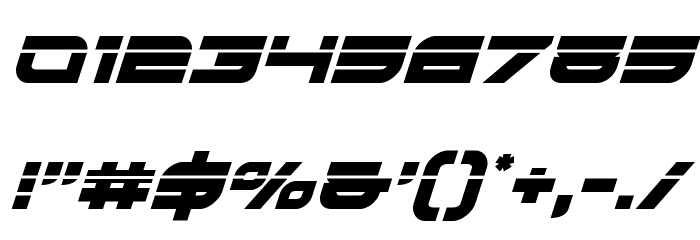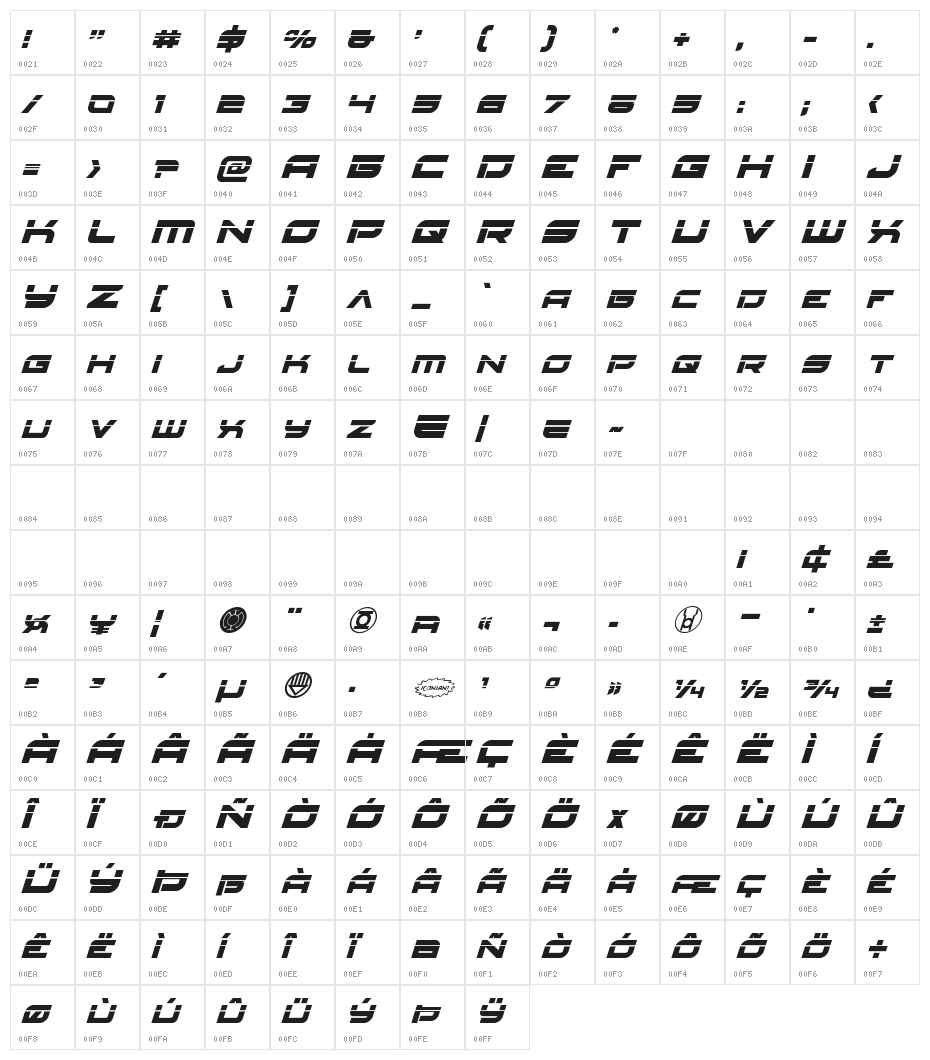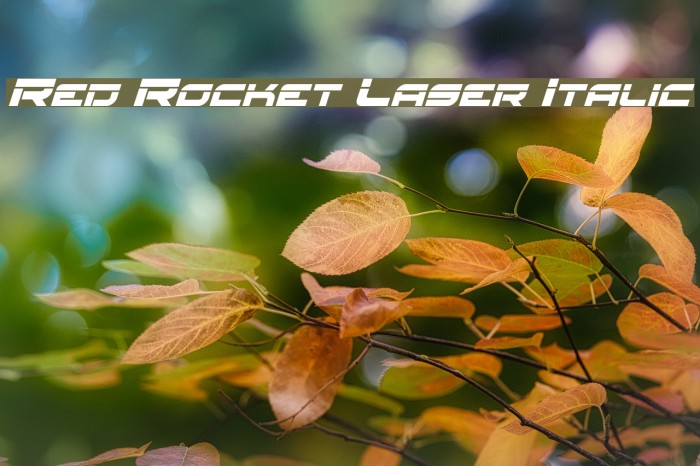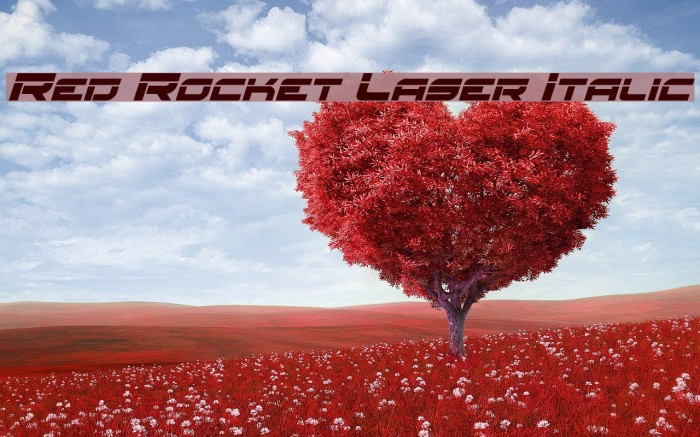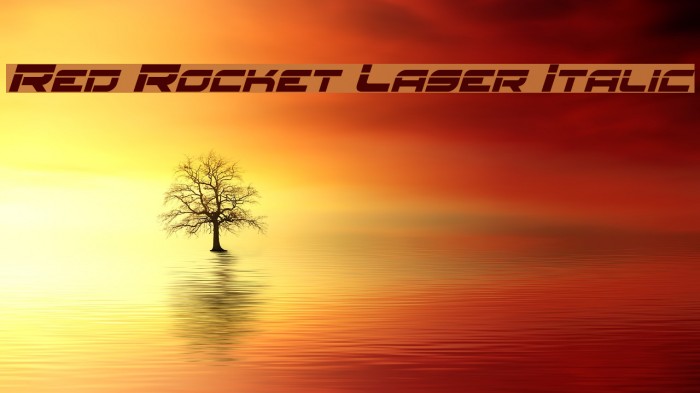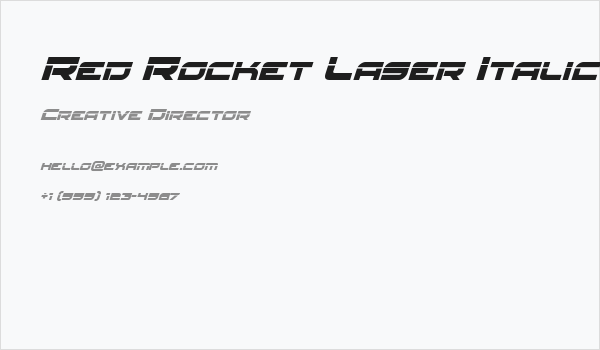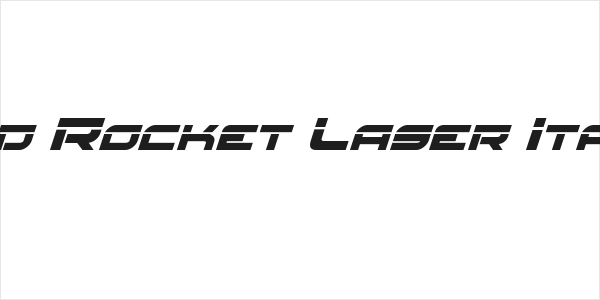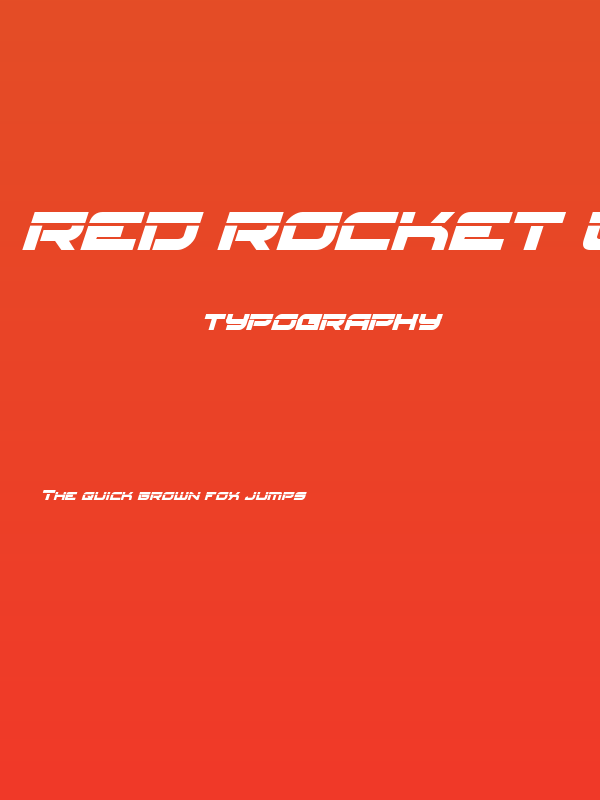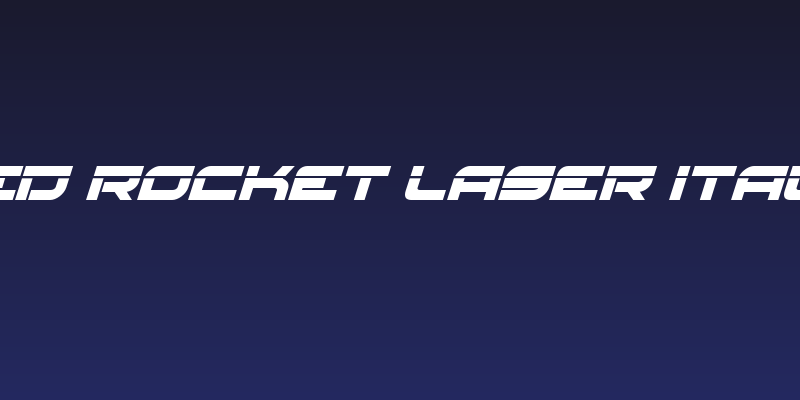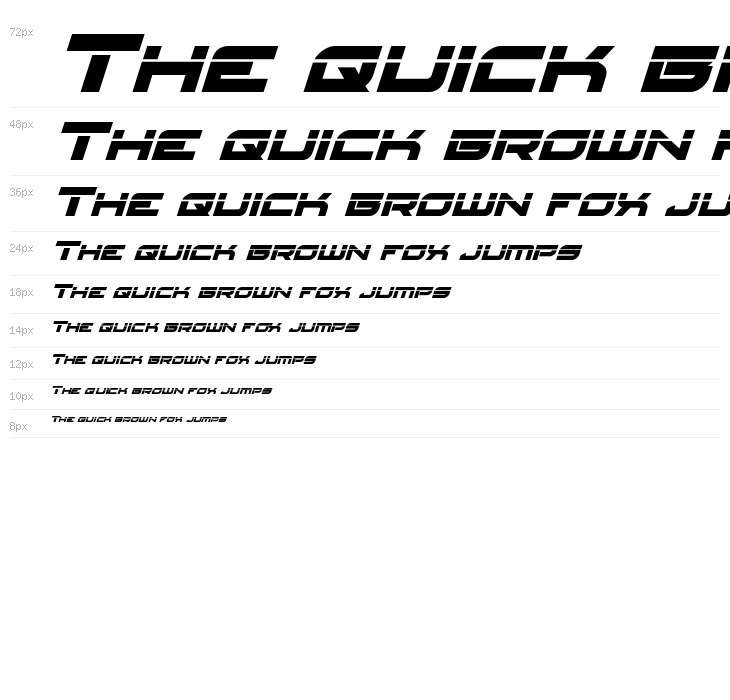
Red Rocket Laser Italic Font
Red Rocket Laser Italic Description
This font features a futuristic and dynamic design with sharp, angular edges and a distinct italic slant. The characters are bold and wide, giving a sense of speed and motion. The uppercase and lowercase letters maintain a consistent style, with a geometric structure that enhances readability. The numbers and special characters follow the same design principles, ensuring uniformity across all elements. This font is ideal for projects that require a modern and energetic aesthetic, such as technology branding, sports team logos, or sci-fi themed designs.
| Use Case | Logos, Headlines |
| Proposed Projects | Ideal for technology branding, sports team logos, sci-fi themed designs, and dynamic advertising. |